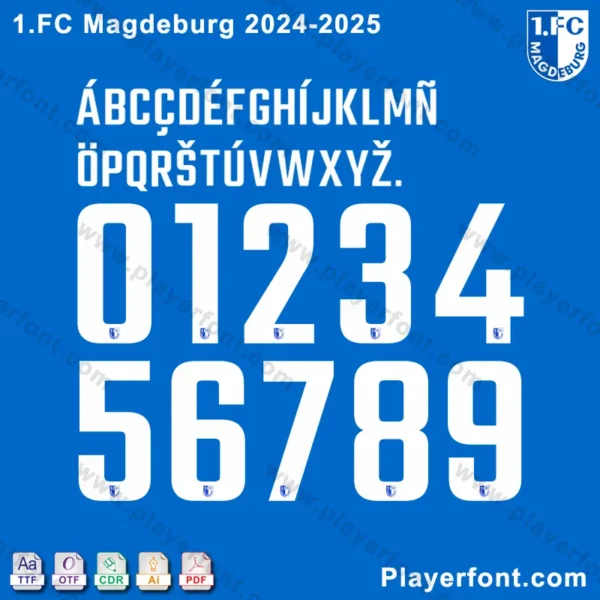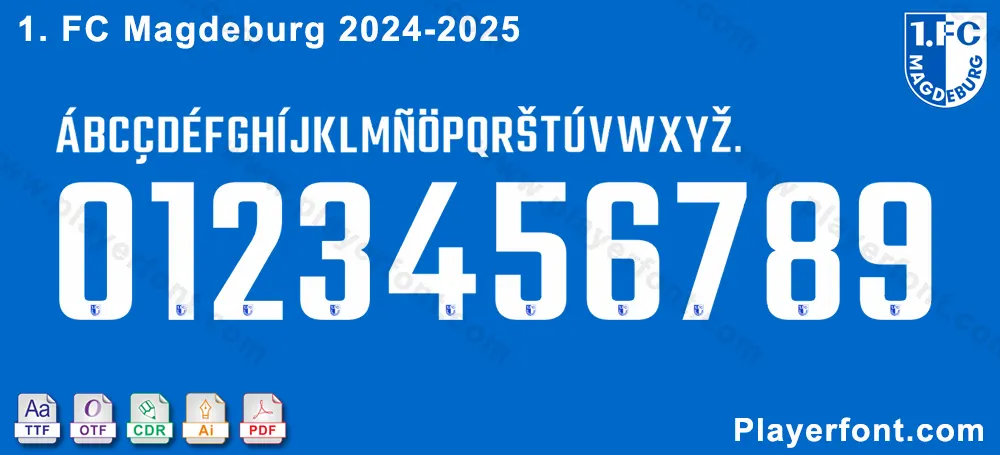
1. FC Magdeburg 2024-2025 font preview with numbers and letters
Preview of 1. FC Magdeburg 2024-2025 font with numbers, letters, and logo.Unlock the 1. FC Magdeburg font for the 2024-2025 season. This font is used on the club’s football jerseys and official merchandise, and now you can download it to bring your creative ideas to life.
Whether you’re a graphic designer, a passionate 1. FC Magdeburg fan, or someone looking to create custom apparel, this font download is perfect for crafting authentic designs. Use it to design jerseys, posters, or digital artwork that captures the spirit of 1. FC Magdeburg.